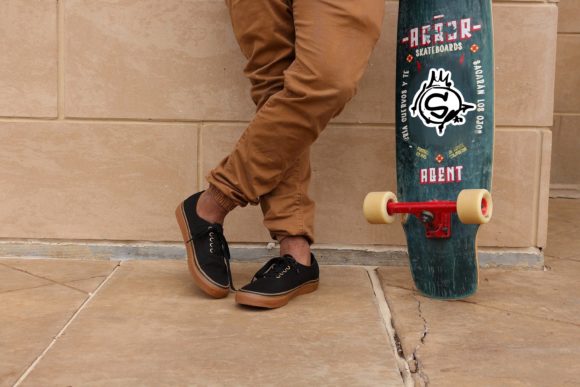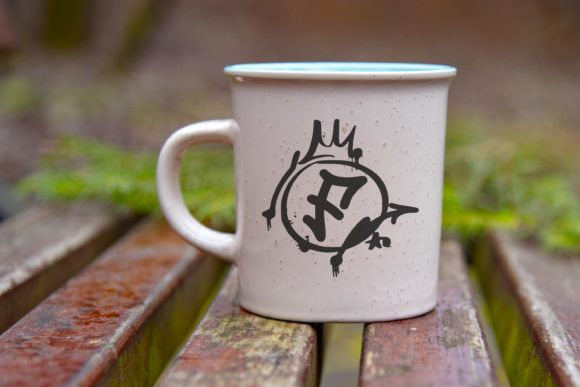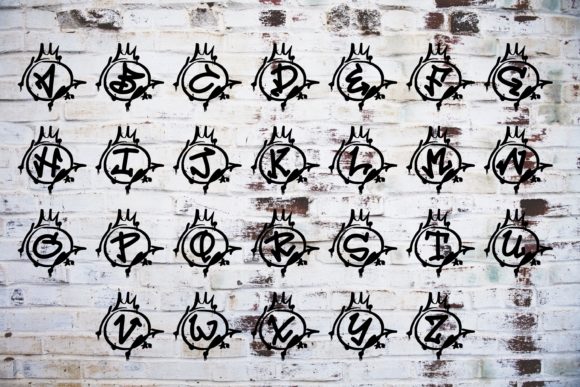
Graffiti Monogram is an awesome, graffiti-styled display font that has a futuristic, street art vibe. This font is suitable for designs such as t-shirts, sportswear, logos, advertisements, clothing, and more.
Graffiti Monogram Font